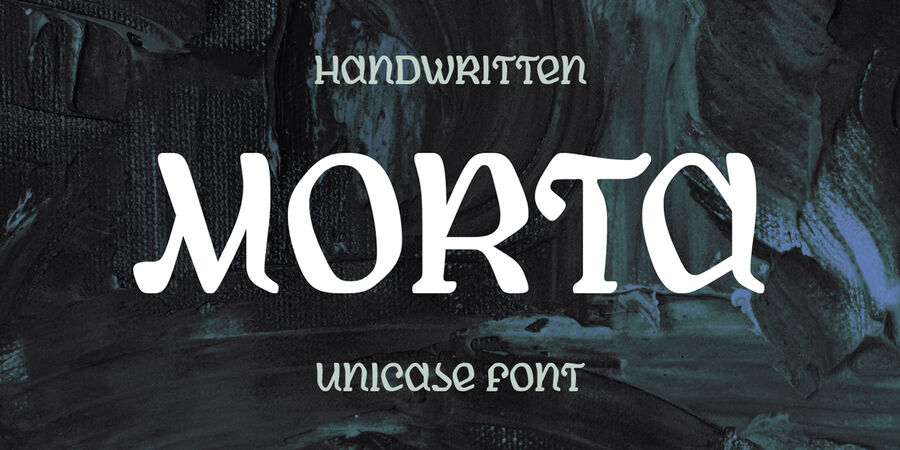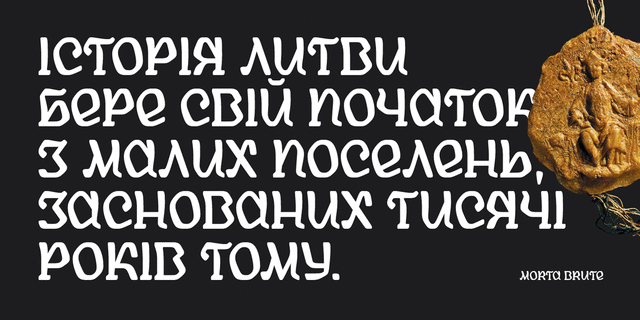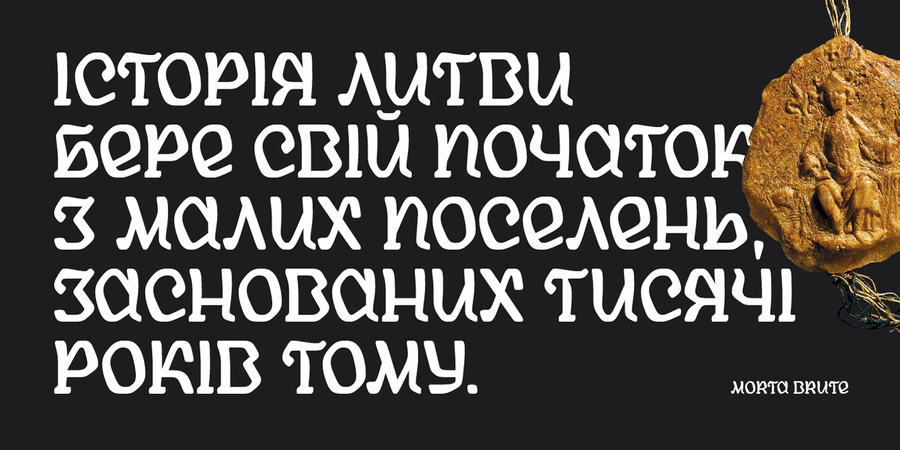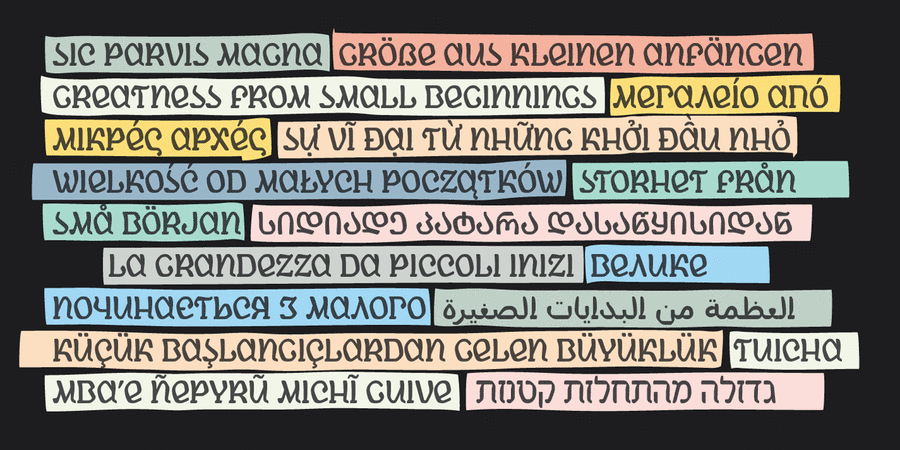
About MortaMorta is a handwritten unicase typeface with a slight calligraphic influence. Its design, like centuries-old cold dark stones, has carved edges and polished corners and is represented by two styles: the more legible “Brute” for general use and the more contrasted “Grace” for large text sizes.
Styles: Brute, Grace. The promo images include the painting “The Dedication” by Edmund Blair Leighton, “The Idyll” by Mykola Pymonenko, photos by Steve Johnson from Pexels and Matt Brett from Unsplash, the poem “What did we have?” by Lina Kostenko, the Sonnets’ dedication by William Shakespeare, and illustrations by Michael Rafailyk. The typeface was designed by Michael Rafailyk in 2023 and significantly expanded in 2024. Morta supports 111 languagesUkrainian, English, German, Polish, Portuguese, Spanish, Georgian, Kazakh, Hebrew, French, Greek (modern), Arabic, Vietnamese, Russian, Czech, Dutch, Italian, Swedish, Turkish, Finnish, Belarusian, Greek, Tatar, Serbian, Bulgarian, Estonian, Lithuanian, Albanian, Afrikaans, Basque, Breton, Valencian, Galician, Gaelic (Scottish), Danish, Indonesian, Irish, Icelandic (Win), Karakalpak, Catalan, Norwegian, Occitan, Rhaeto-Romance, Sami Lule, Tswansky, Uzbek (Lat.), Faroese, Frisian, Chamorro, Estonian (Win), South Sami, Albanian (Win), Hungarian, Upper leprechauny, Karelian, Latvian (Mac), Lithuanian (Mac), Maori (Mac), Moldovan (Lat.), Lower Sorbian, Romanian (Win), Slovak, Slovenian, Turkmen (Lat.), Croatian (Win), Estonian (Mac), Kurdish, Latvian, Maori, Romanian, Abazin, Avar, Agul, Adyghe, Darginsky, Ingush, Kabardino-Circassian, Kabardian, Karachay-Balkar, Kumyk, Lak, Lezghian, Macedonian, Mordovian-Moksha, Mordovian-Erzya, Nogai, Rutulian, Tabasaran, Tatar, Tsakhur, Chechen, Azerbaijani (Cyrillic), Bashkir, Buryat, Dungan, Kalmyk, Kirghiz, Mongolian (Cyrillic), Tajik, Talysh, Tuvan, Turkmen (Cyrillic), Uzbek (Cyrillic), Uighur, Yiddish, Tatar (Hebrew), Dari, Malay, Persian (Farsi), Pashtun, Urdu Functions of font family MortaTypeface use in layout: